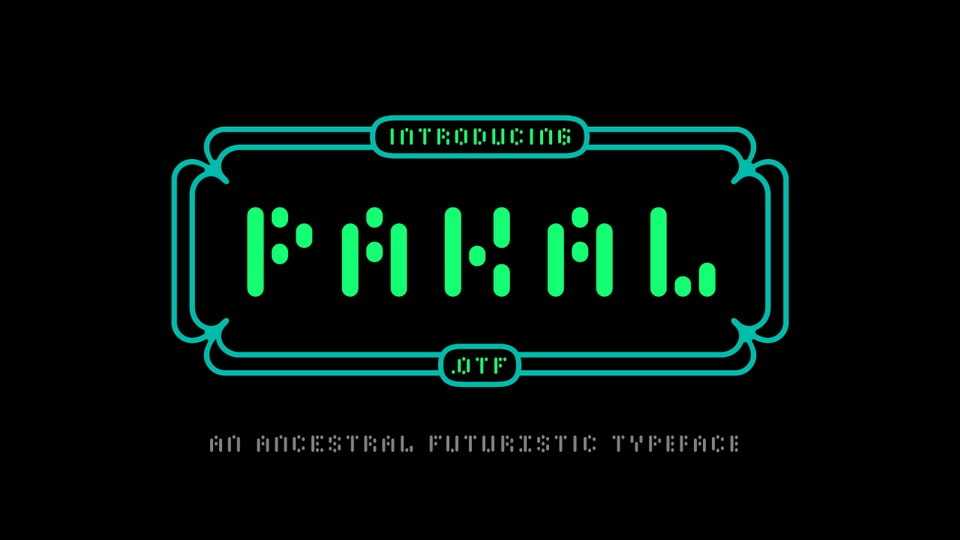
Download Pakal font, an experimental display typeface inspired by ancestral mayan glyphs numbers. Its big forms and rounded corners make Pakal font perfect for adding big impact and personality to your design with a futuristic look.
Designer: Dario Nuñez